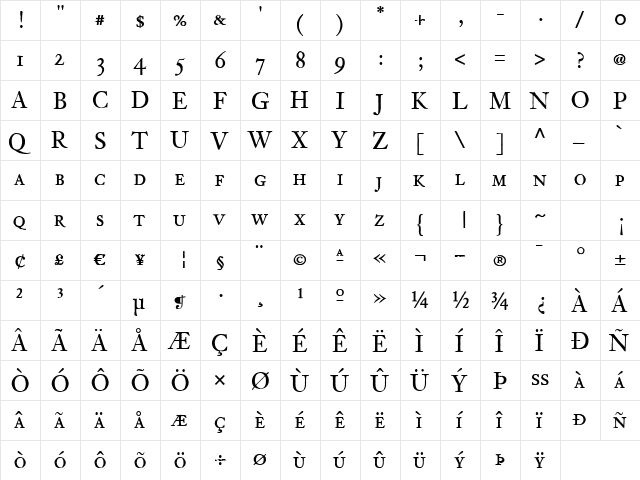
ArchetypeSmall Caps Regular
Design Context for ArchetypeSmall Caps Typeface
ArchetypeSmall Caps offers clean, dependable letterforms without strong stylistic allegiance, making it a practical choice for designers who need flexibility.
Pro Tip: Use ArchetypeSmall Caps in both headline and body roles to test its range before committing to a single application.